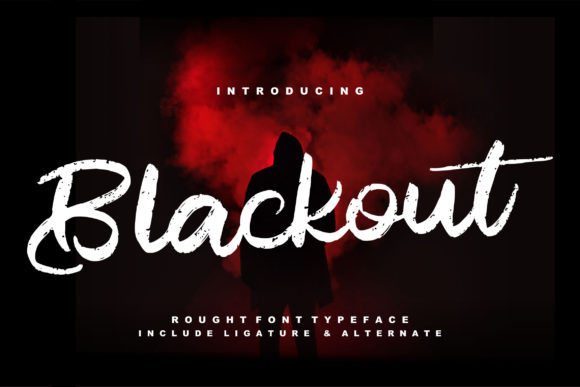
The Blackout Font: A Bold and Authentic Handwritten Style
I still remember the design project that led me to discover the Blackout font. I was working on a branding project for a boutique craft shop, and I needed a font that would evoke a sense of nostalgia and handmade charm. After hours of scouring font libraries and online marketplaces, I stumbled upon Blackout – a bold and authentic handwritten font that instantly captured the essence of the brand. In this article, I’ll share my experience with Blackout, its features, and how to make the most of it in your designs.
An Honest Review of Blackout Font
What I Love About Blackout ✨
- ✅ Unique character: Blackout has a distinct, hand-crafted feel that sets it apart from other fonts.
- ✅ High legibility: Despite its bold nature, Blackout remains surprisingly legible, even at smaller sizes.
- ✅ OpenType features: Blackout supports a range of OpenType features, including stylistic alternates and glyphs.
- ✅ Crafting and DIY vibe: Blackout instantly conveys a sense of handmade craftsmanship, perfect for branding and marketing materials.
- ⚠️ Limited use cases: Due to its bold nature, Blackout may not be suitable for body text or lengthy paragraphs.
- ⚠️ Kerning issues: As with any font, some users may experience kerning issues, particularly with certain letter combinations.
The Story Behind Blackout Font
Blackout was designed by a team of typographers who sought to create a font that would evoke the spirit of classic calligraphy. Inspired by vintage signs and hand-painted lettering, Blackout is a bold and authentic handwritten font that is perfect for making a statement.
Q: Is Blackout font suitable for body text?
A: No, Blackout font is best suited for headlines, titles, and short paragraphs, due to its bold nature.